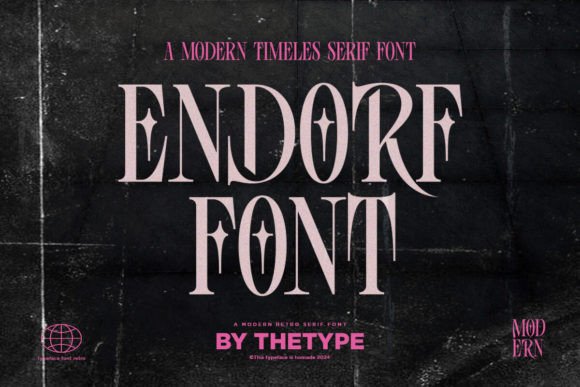
Introducing Endorf Font: A Timeless Serif Font for Stunning Designs
In the world of typography, fonts play a crucial role in conveying messages, expressing emotions, and creating visual identities. Among the numerous fonts available, Endorf Font stands out as a lovely and timeless serif font that has gained popularity for its unique and beautiful touch. In this article, we’ll explore the features, benefits, and uses of Endorf Font, and why it’s an excellent choice for creating eye-catching logos, branding, and quotes.
What is Endorf Font?
Endorf Font is a serif font that boasts a classic and elegant design. Its timeless appeal makes it suitable for a wide range of design projects, from logos and branding to quotes and editorial content. The font’s creator has carefully crafted each letter to possess a distinct character, making it a versatile and attractive choice for designers.
Unique Characteristics of Endorf Font
So, what sets Endorf Font apart from other serif fonts? Here are some of its unique characteristics:
- Beautiful touch: Every letter in Endorf Font has a unique and beautiful touch that adds a touch of elegance to any design.
- Timeless appeal: The font’s classic design ensures that it remains relevant and stylish, even as design trends evolve.
- Versatility: Endorf Font can be used for a wide range of design projects, from logos and branding to quotes and editorial content.
- Easy to read: The font’s clear and legible design makes it easy to read, even at small sizes.
Uses of Endorf Font
Endorf Font is an excellent choice for various design projects, including:
- Logo design: Create stunning logos that make a lasting impression with Endorf Font’s unique and beautiful touch.
- Branding: Use Endorf Font to create a consistent visual identity for your brand, adding a touch of elegance and sophistication.
- Quotes: Make your quotes stand out with Endorf Font’s beautiful and timeless design.
- Editorial content: Use Endorf Font to add a touch of class and elegance to your editorial content, such as articles, blog posts, and more.
Benefits of Using Endorf Font
By choosing Endorf Font for your design projects, you can enjoy several benefits, including:
- Unique designs: Endorf Font’s unique and beautiful touch ensures that your designs stand out from the crowd.
- Timeless appeal: The font’s classic design ensures that your designs remain relevant and stylish, even as design trends evolve.
- Easy to read: Endorf Font’s clear and legible design makes it easy to read, even at small sizes.
- Versatility: The font can be used for a wide range of design projects, making it a valuable addition to your font library.
Tips for Using Endorf Font
To get the most out of Endorf Font, here are some tips to keep in mind:
- Use it for headlines: Endorf Font is perfect for headlines, titles, and other display text.
- Pair it with other fonts: Experiment with pairing Endorf Font with other fonts to create a unique and visually appealing design.
- Adjust the size: Don’t be afraid to experiment with different font sizes to find the perfect balance for your design.
- Use it consistently: Use Endorf Font consistently throughout your design project to create a cohesive and professional look.
In conclusion, Endorf Font is a lovely and timeless serif font that is perfect for creating eye-catching logos, branding, and quotes. Its unique and beautiful touch, combined with its versatility and ease of use, make it an excellent choice for designers. By incorporating Endorf Font into your design projects, you can add a touch of elegance and sophistication, ensuring that your designs stand out from the crowd.